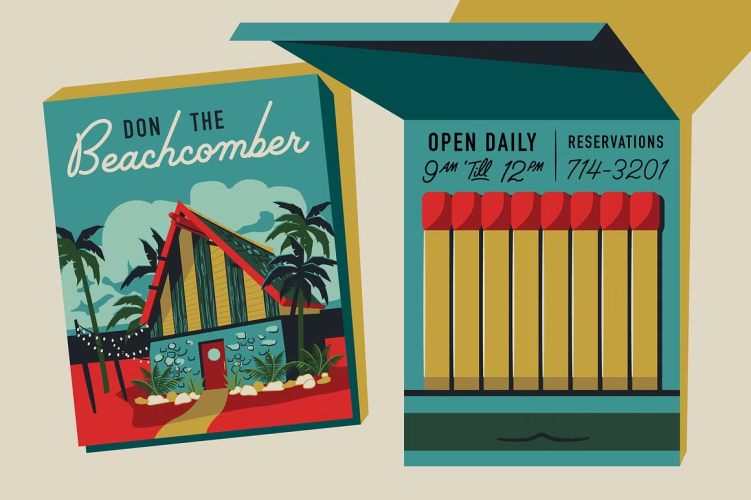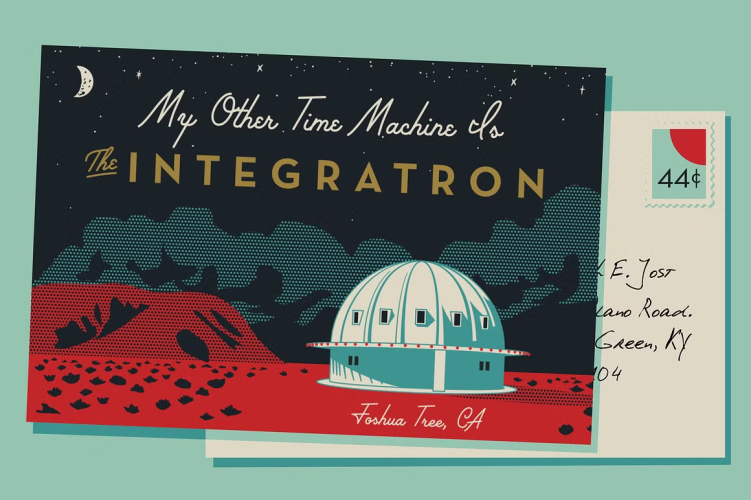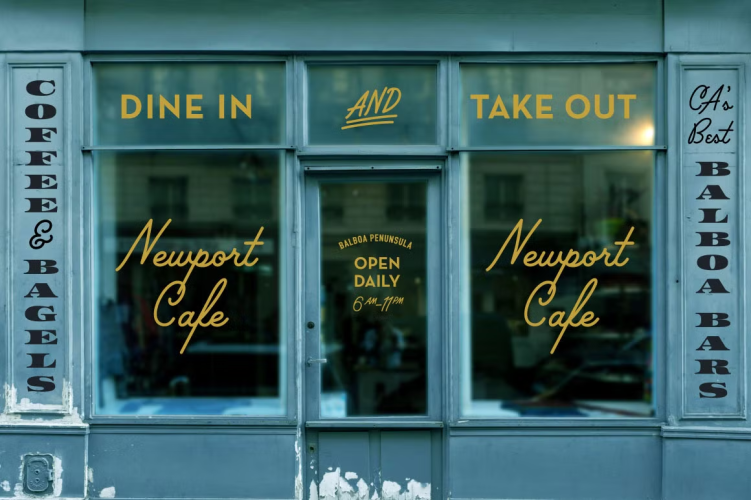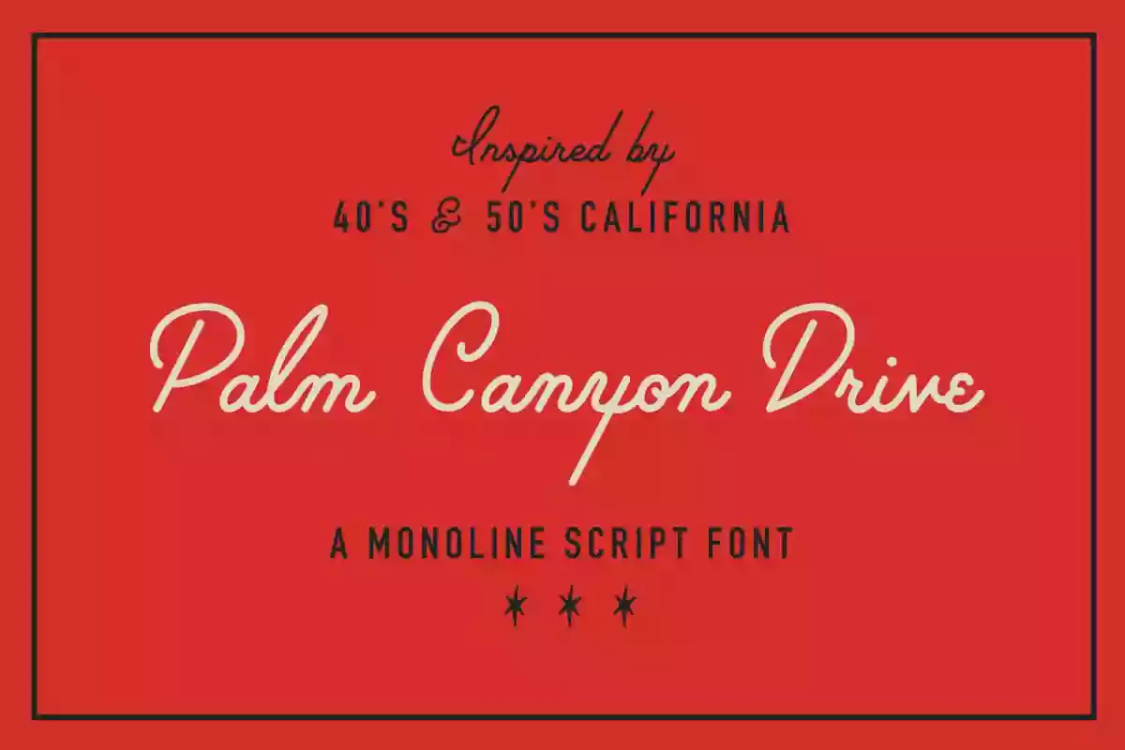
Palm Canyon Drive Font
Palm Canyon Drive is a script font inspired by retro designs like matchbook covers, travel postcards, Tiki bars, and Hollywood.
A Monoline Script Inspired by ’40s and ’50s California
Mid-century California was a magical place. Post-war optimism fueled the popularity of everything from Hollywood to roadside diners.
With a classy yet unpretentious tone, Palm Canyon Drive would look as comfortable on a Tiki bar matchbook cover as it would on a Hollywood movie poster.
Palm Canyon Drive was designed by Amy Hood, co-founder of Hoodzpah Design Co. in conjunction with RetroSupply Co. Amy Hood’s work is a seamless blend of modern and retro design. Hoodzpah Design Co. has worked with many incredible clients, including Google, Matchbox, The History Channel, and more.
Palm Canyon Drive Font is a Script And Handwritten font that brings a professional and versatile look to your projects. Palm Canyon Drive is a script font inspired by retro designs like matchbook covers, travel postcards, Tiki bars, and Hollywood.